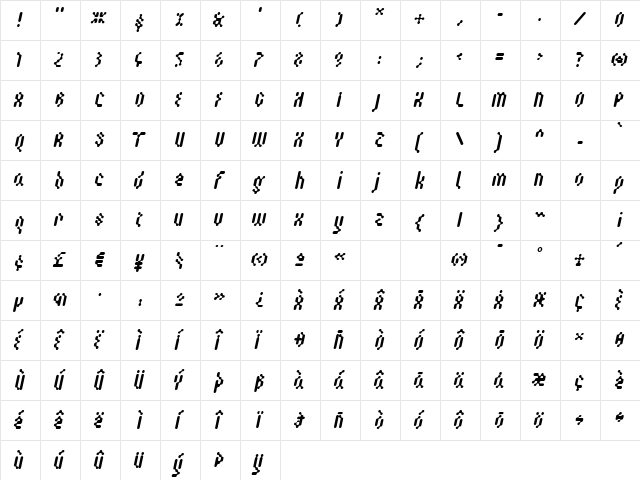
Biot Italic
Design Context for Biot Typeface
Biot is a composed and adaptable typeface that performs quietly and consistently across a wide range of design contexts. The dynamic lean of this cut emphasises speed and emphasis in any layout.
Pro Tip: Try Biot for annotation and caption copy alongside an upright companion — the contrast in angle creates a dynamic but ordered typographic system.